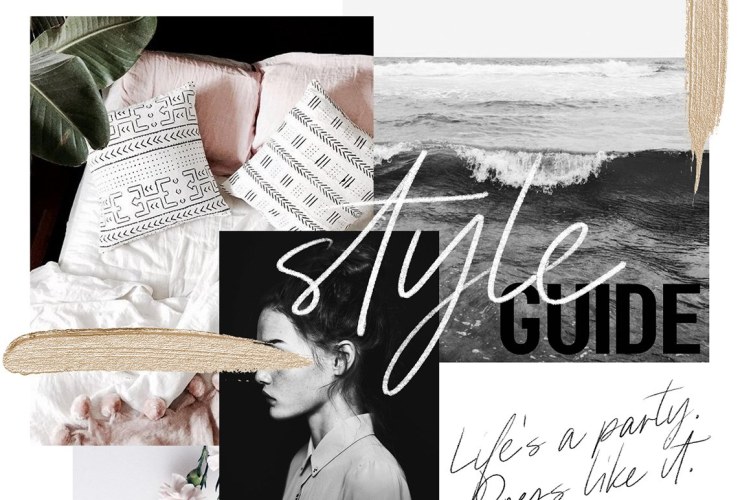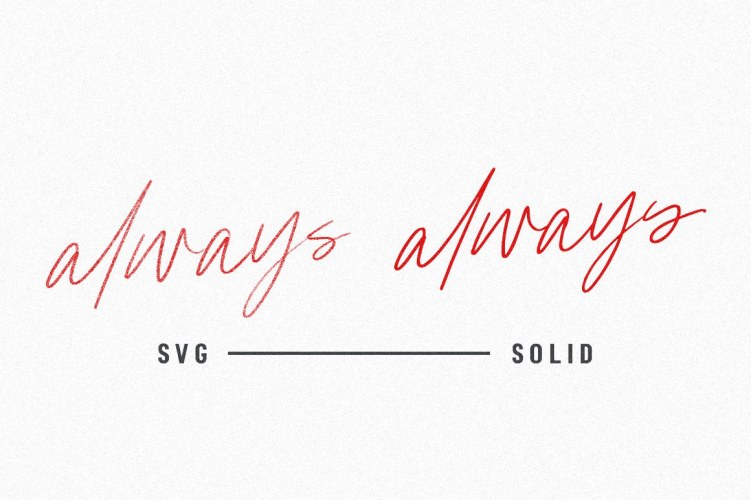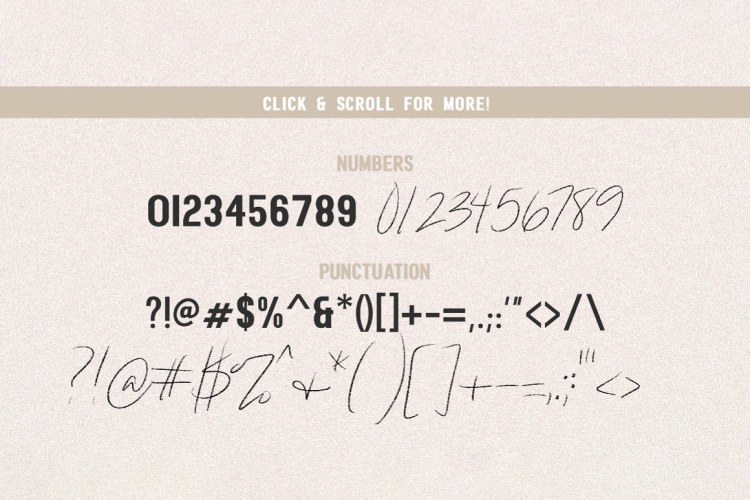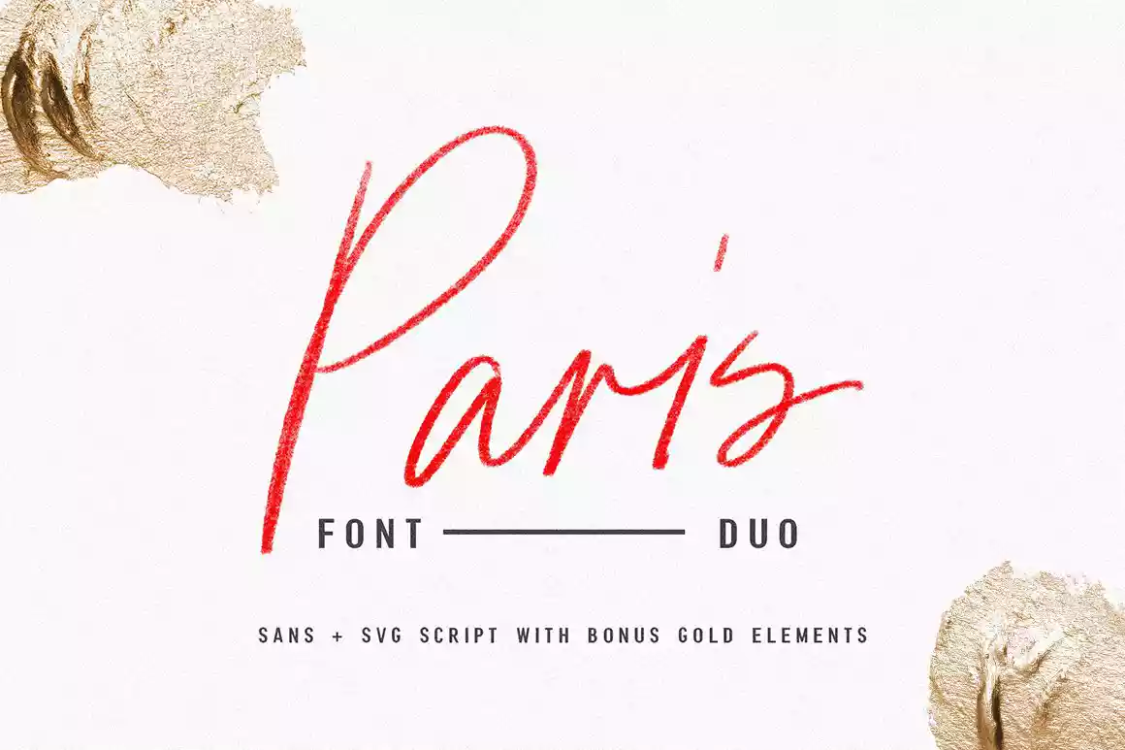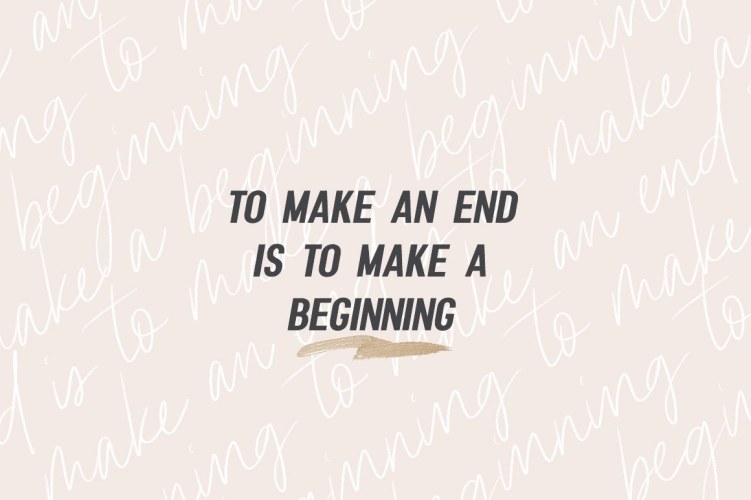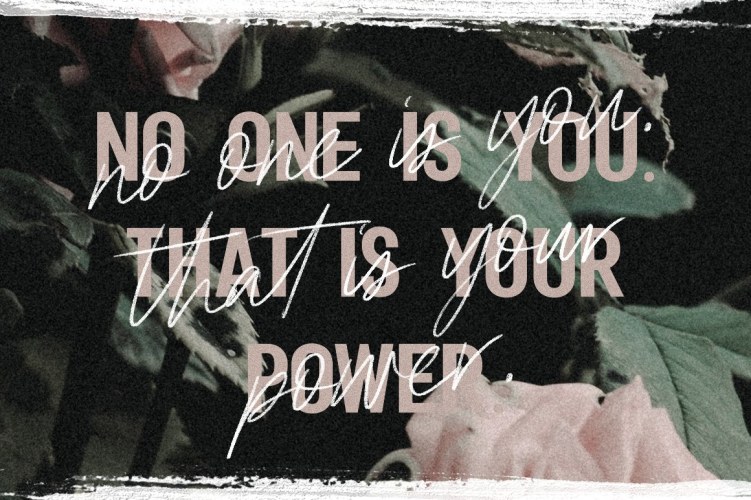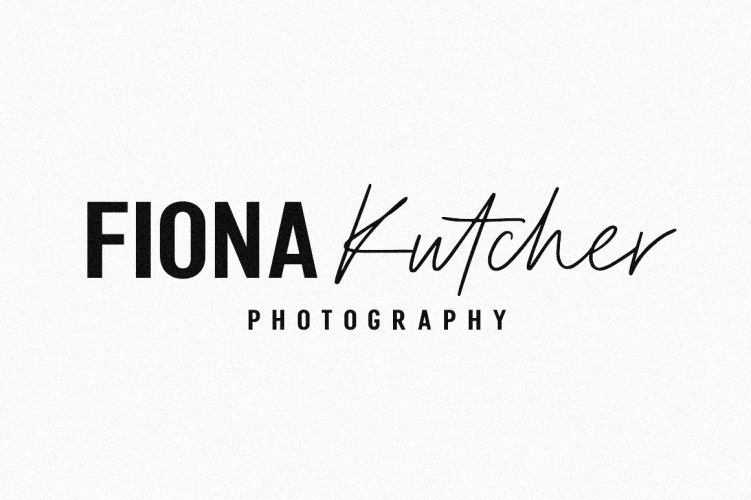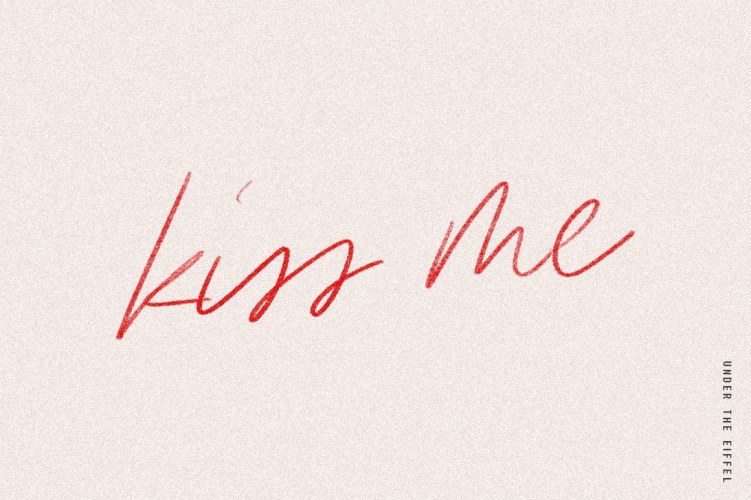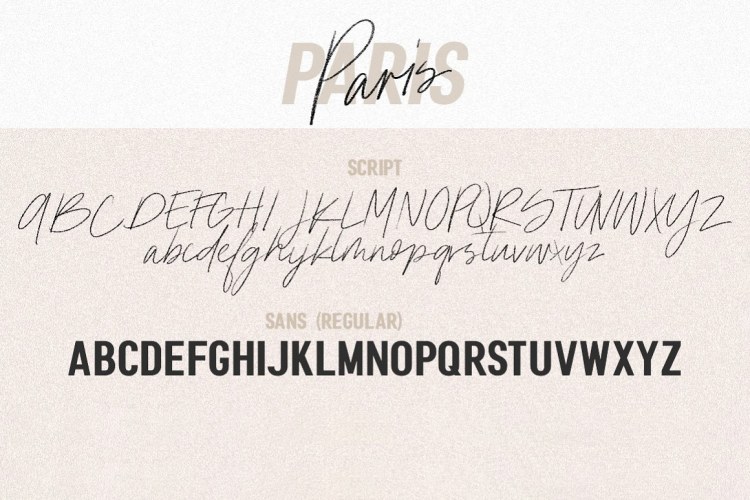
Paris Font Duo
Say hello to Paris, a beautiful new font duo! Create gorgeous invitations, quotes, mood boards, and more with a delicate, realistic script and a bold, minimal sans
Where Paris Font Duo works best
Paris Font Duo brings a personal, handwritten warmth to invitations, menus and place cards.
Craft brands — coffee, cosmetics, bakery — use scripts like Paris Font Duo for signature-style logos and labels.
Pair Paris Font Duo with a plain sans for quotes, stories and Pinterest pins that feel handmade.
What is Paris Font Duo good for?
Paris Font Duo is a Script And Handwritten typeface tagged Bold, Elegant, Minimal, Minimalist. It works well for headlines, logos, posters, social media graphics and branding projects that need a distinctive script and handwritten look.